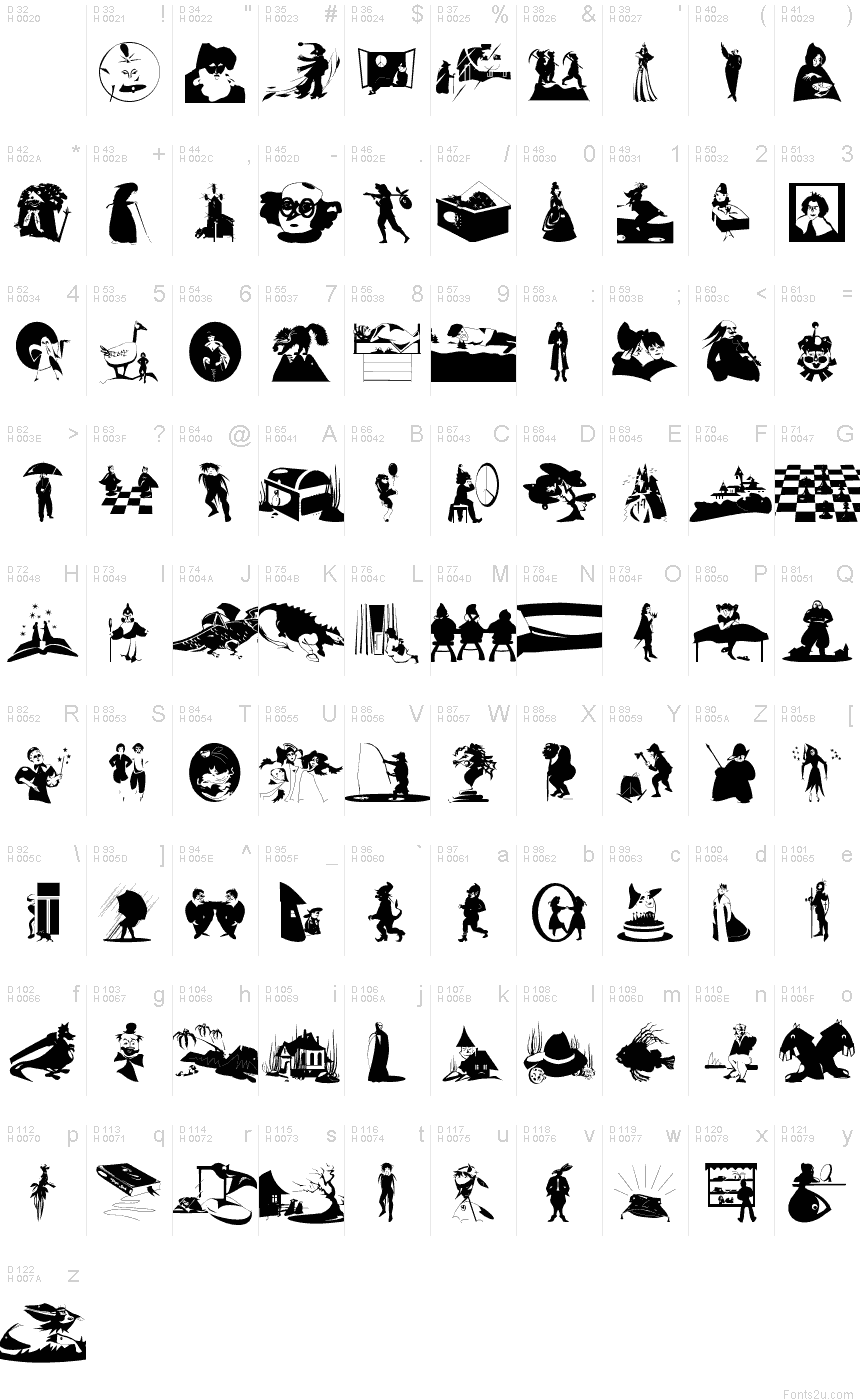
Magic Bats by Manfred Klein is a free cartoon silhouette dingbat font filled with lively human figures, food scenes, expressive faces, and storybook objects rendered as compact illustrations. Its shapes are solid, jaunty, and deliberately exaggerated.
Party invitations are its most convincing setting, since the cakes, comic characters, and theatrical little scenes can turn a heading or border into part of the entertainment, and it also suits restaurant menus and children's publishing. Event posters and playful food packaging draw on the same mix of instantly recognizable subjects and mischievous storytelling, letting each symbol function as a small spot illustration rather than ordinary text.